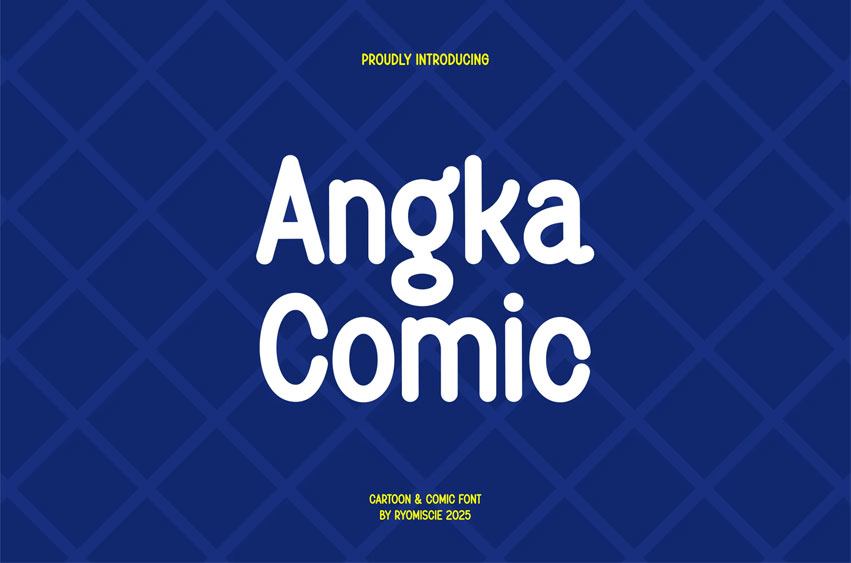
Angka Comic Font
Angka Comic Font Modern Font is a bold and authentic display font. The font is suitable for any branding project like logo, t-shirt printing, esport, and many more. outstanding in a wide range of contexts.